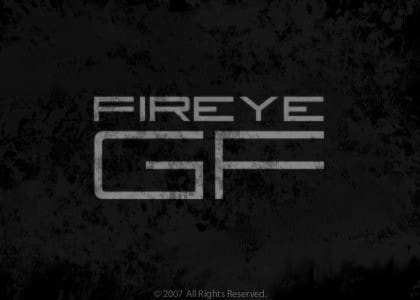
Fireye GF Font is a classically designed Sans serif with the familiar comfortable style of the 60’s and 70’s but with a clean modern look and a set of script style Italics. Rivers comes in a range of three weights and matching italics, a full latin Pro font plus small numerals, small caps and non ranging numerals. Rivers is excellent for both headline and small text and will create a mood which is contemporary yet nostalgic.
Fireye GF Font
| Classification: | Display Fonts, Sans Serif Fonts |